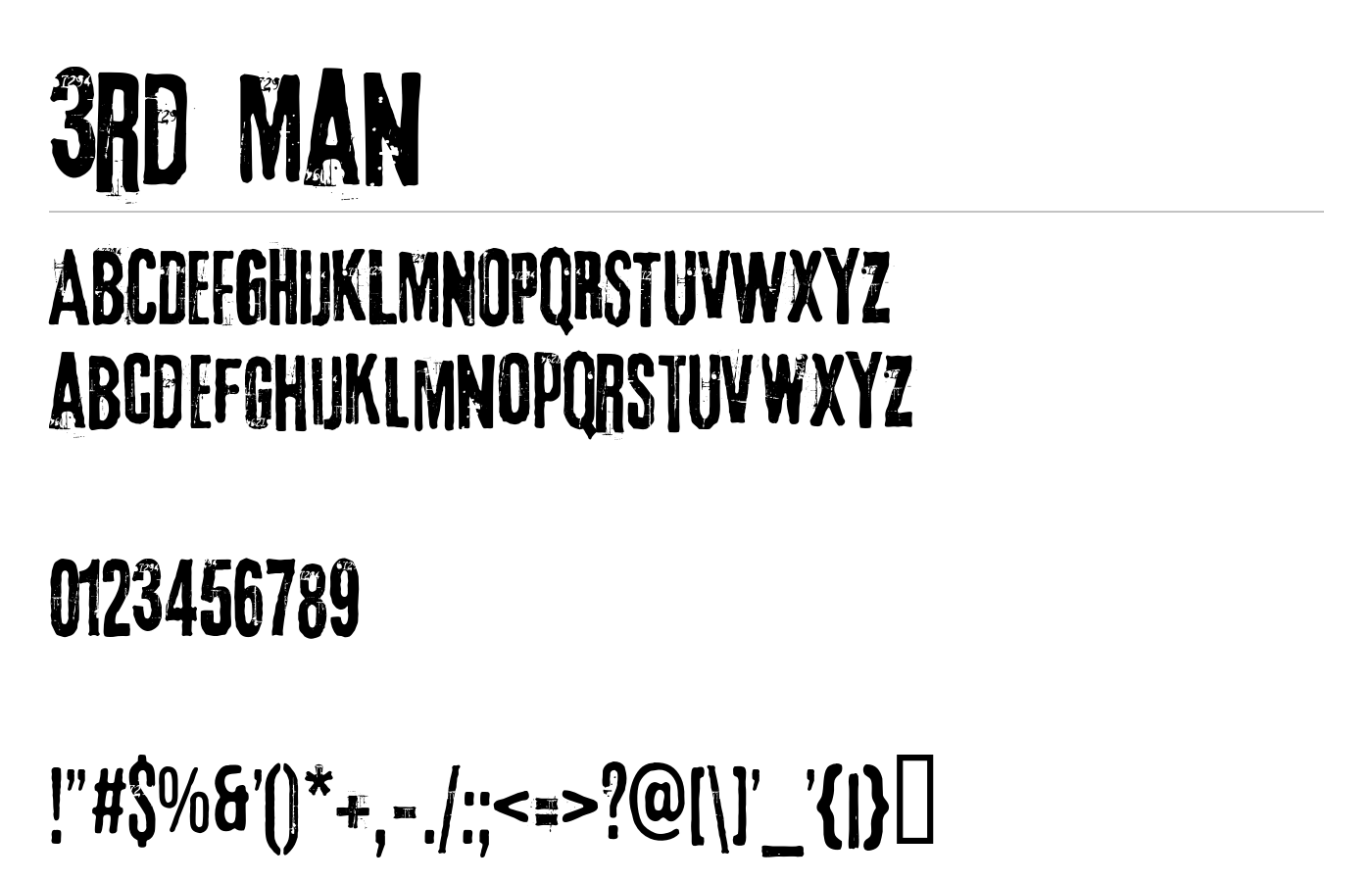
3rd Man is a bold, condensed sans serif font with a distressed, rough texture that gives it a gritty and vintage feel. Its uppercase-only design, uneven edges, and worn-out details make it perfect for edgy, urban, or retro-themed projects, such as posters, logos, and headlines that need a strong, rebellious character. This font captures attention with its rugged personality, making it ideal for creative uses requiring a bold statement.
3rd Man Font
About 3rd Man Font